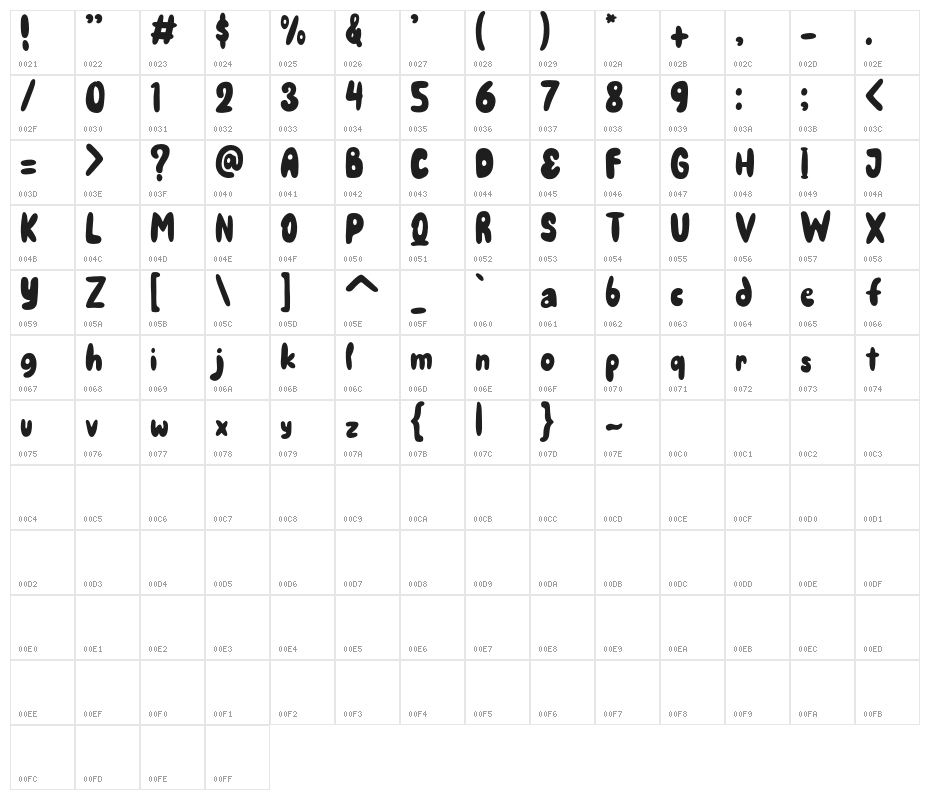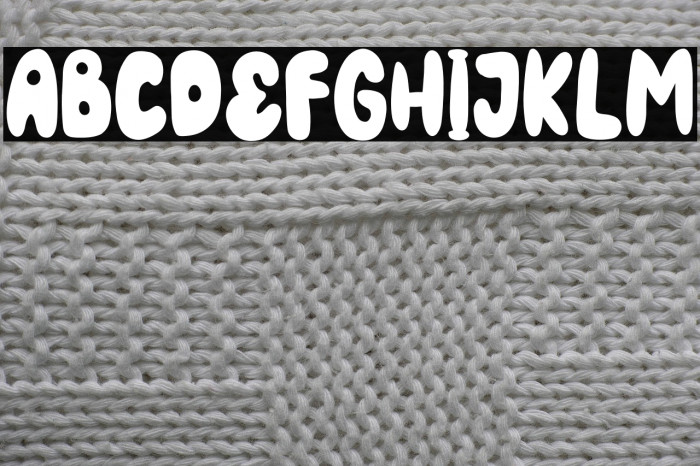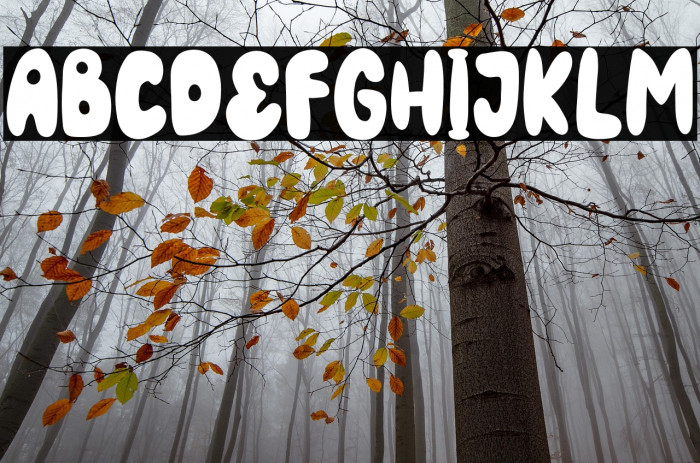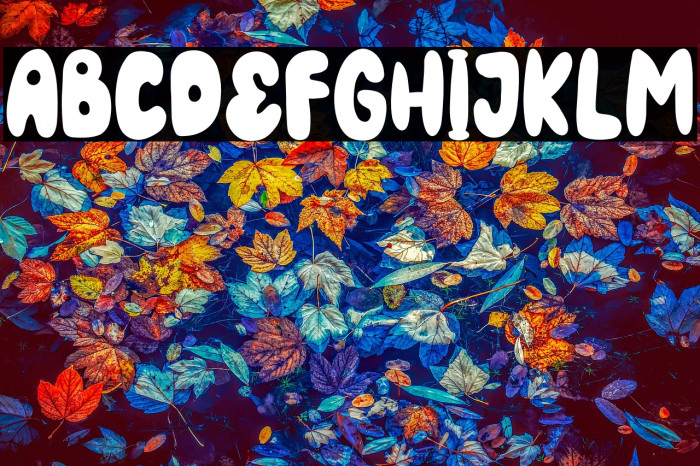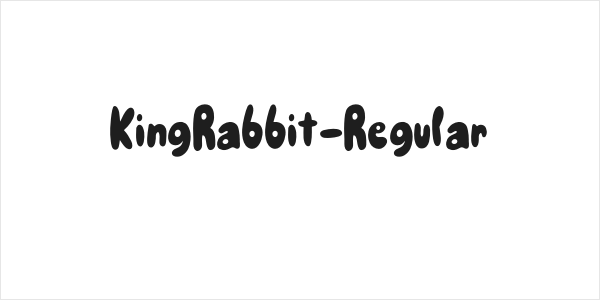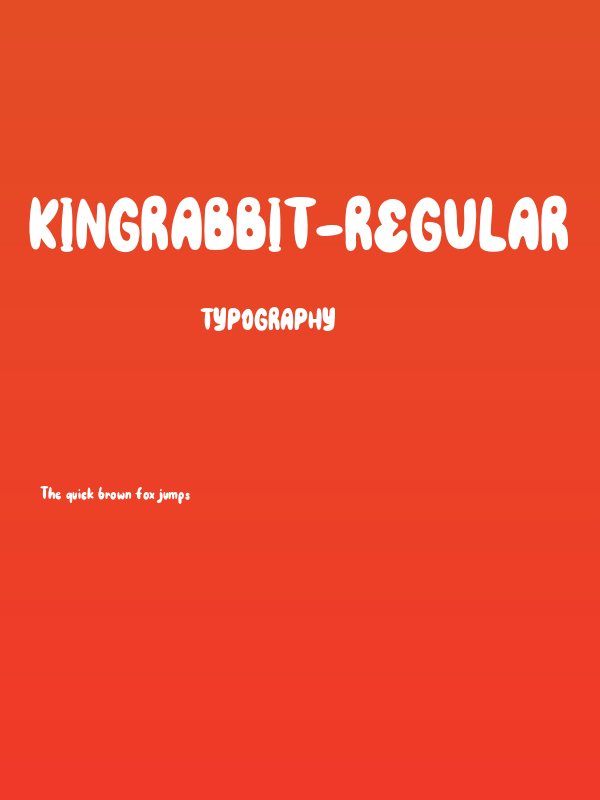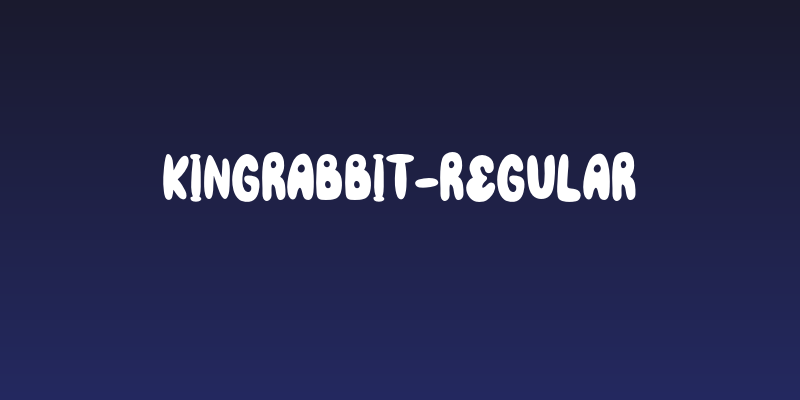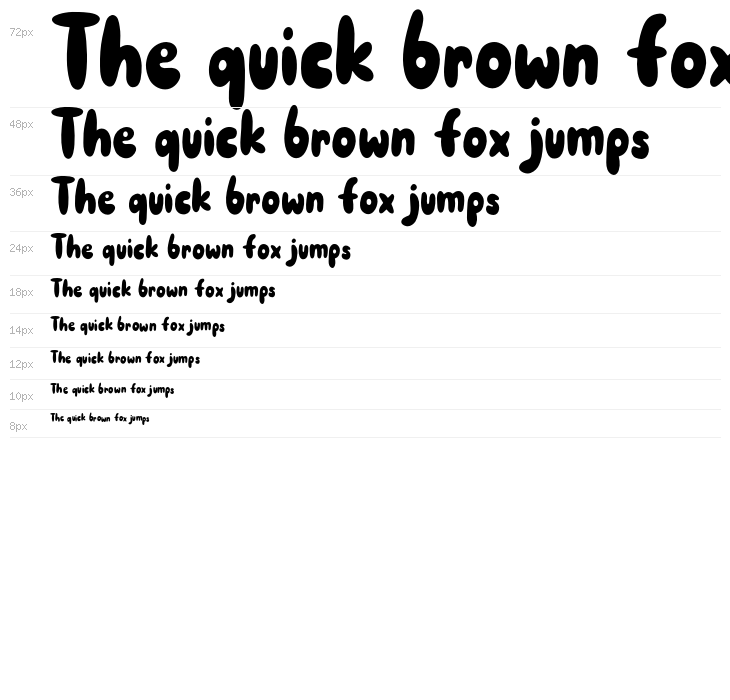
KingRabbit-Regular Font
KingRabbit-Regular Description
This playful and bold font features thick, rounded characters that convey a sense of fun and creativity. The letters are uniformly bold, with a consistent stroke width that gives the typeface a cohesive look. The rounded edges and slightly irregular shapes add a whimsical touch, making it ideal for projects that require a friendly and approachable aesthetic. The font includes a full set of uppercase and lowercase letters, numbers, and a variety of special characters, ensuring versatility in design applications. Its unique style is perfect for capturing attention and adding personality to any project.
| Overall Style | Playful |
| Proposed Projects | Ideal for children's books, playful branding, posters, and creative packaging. |